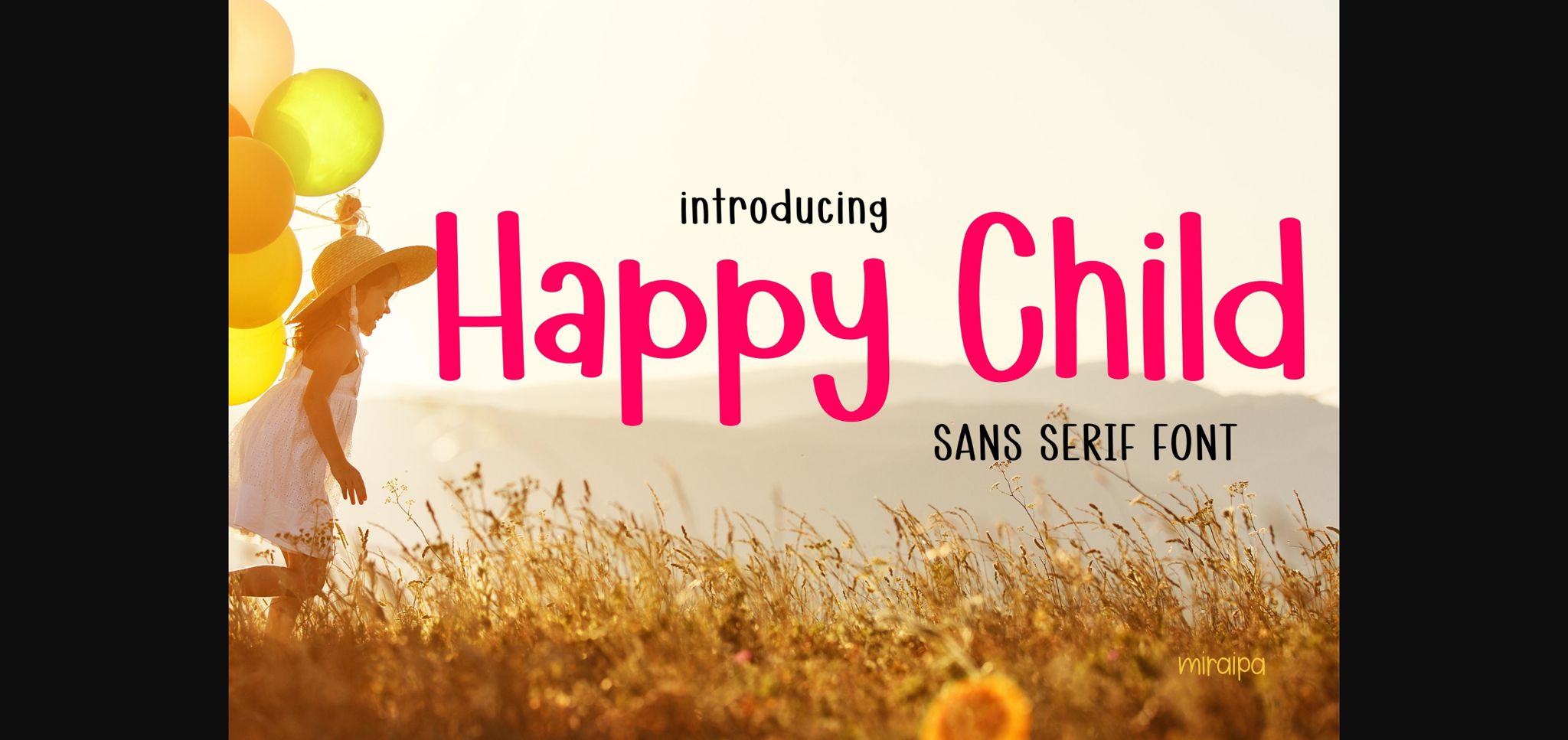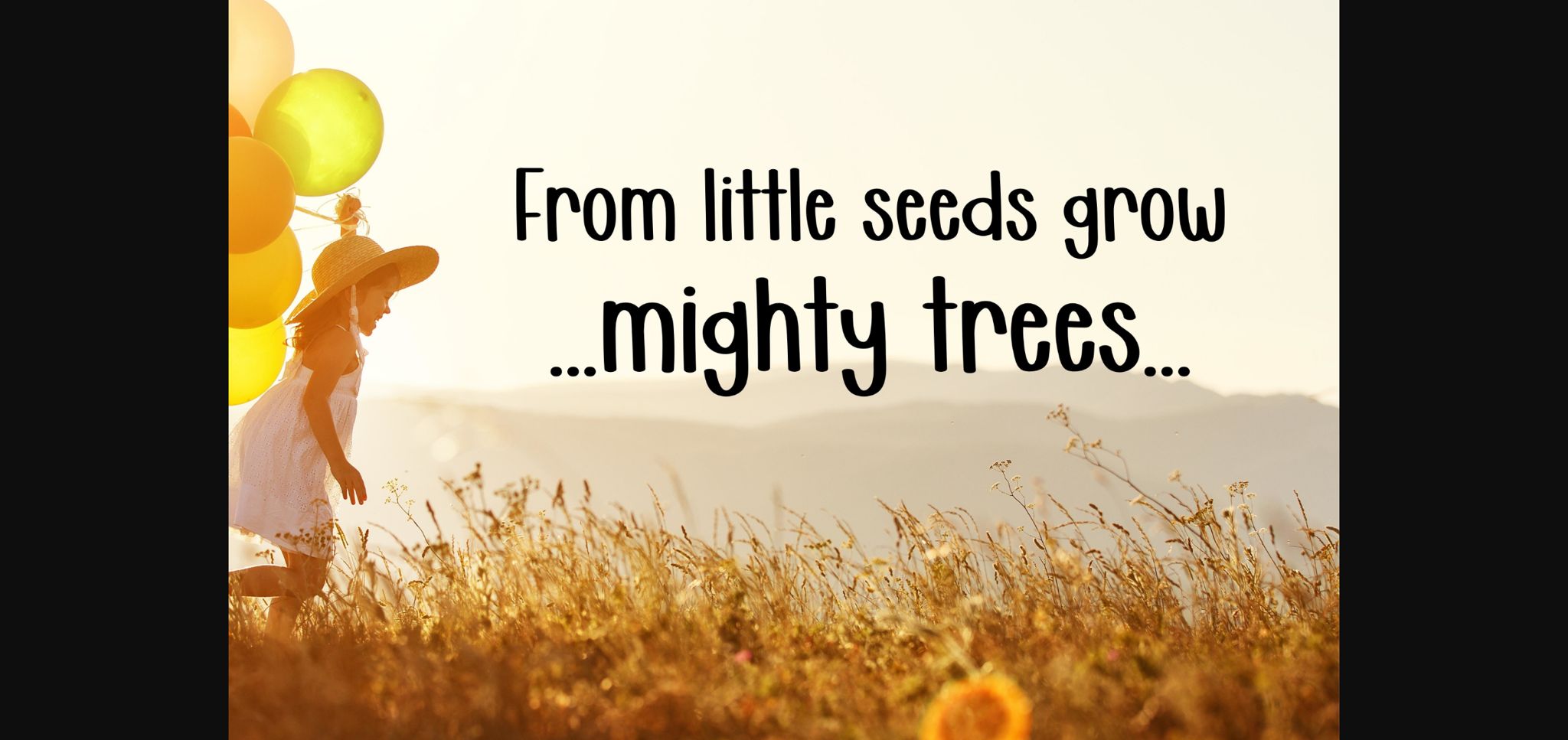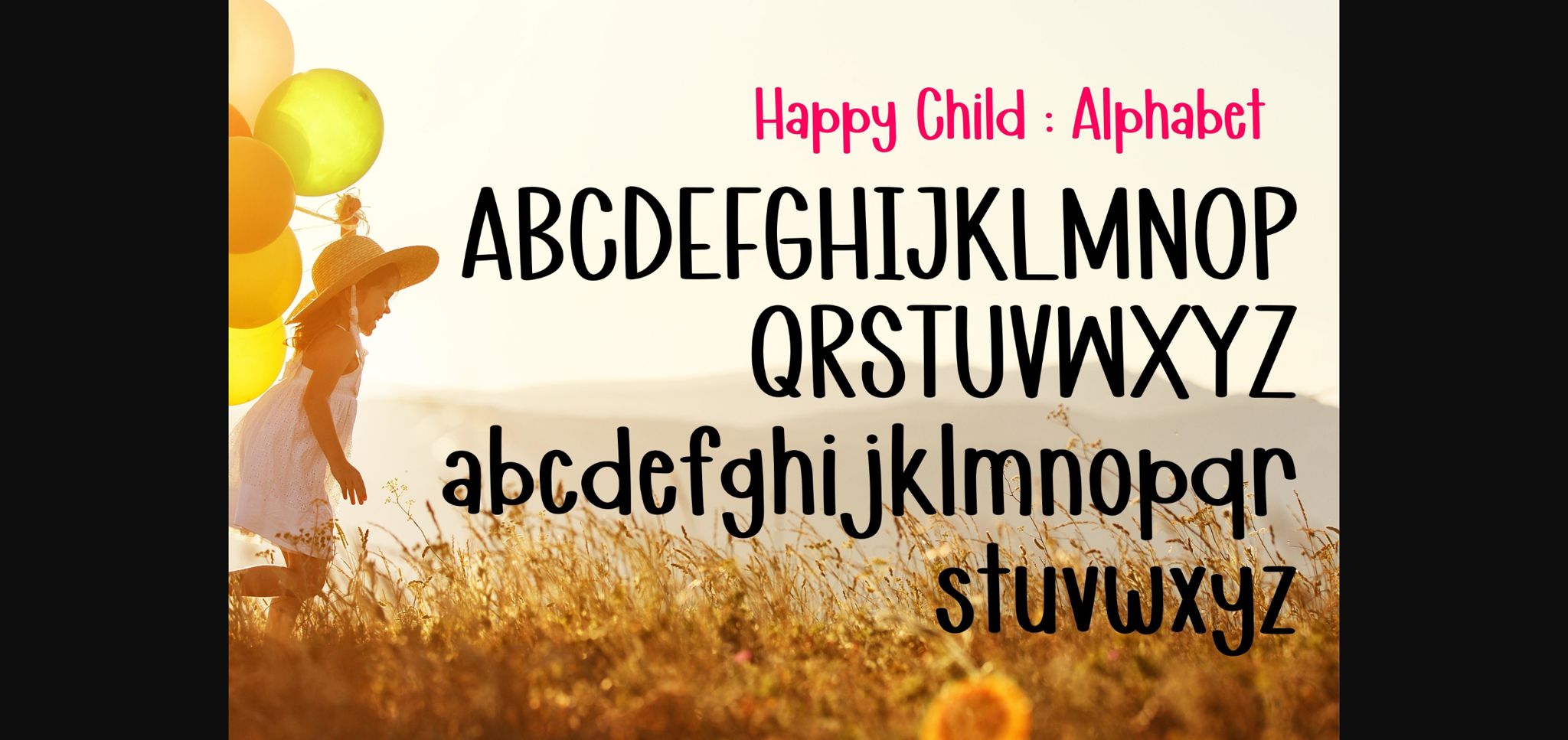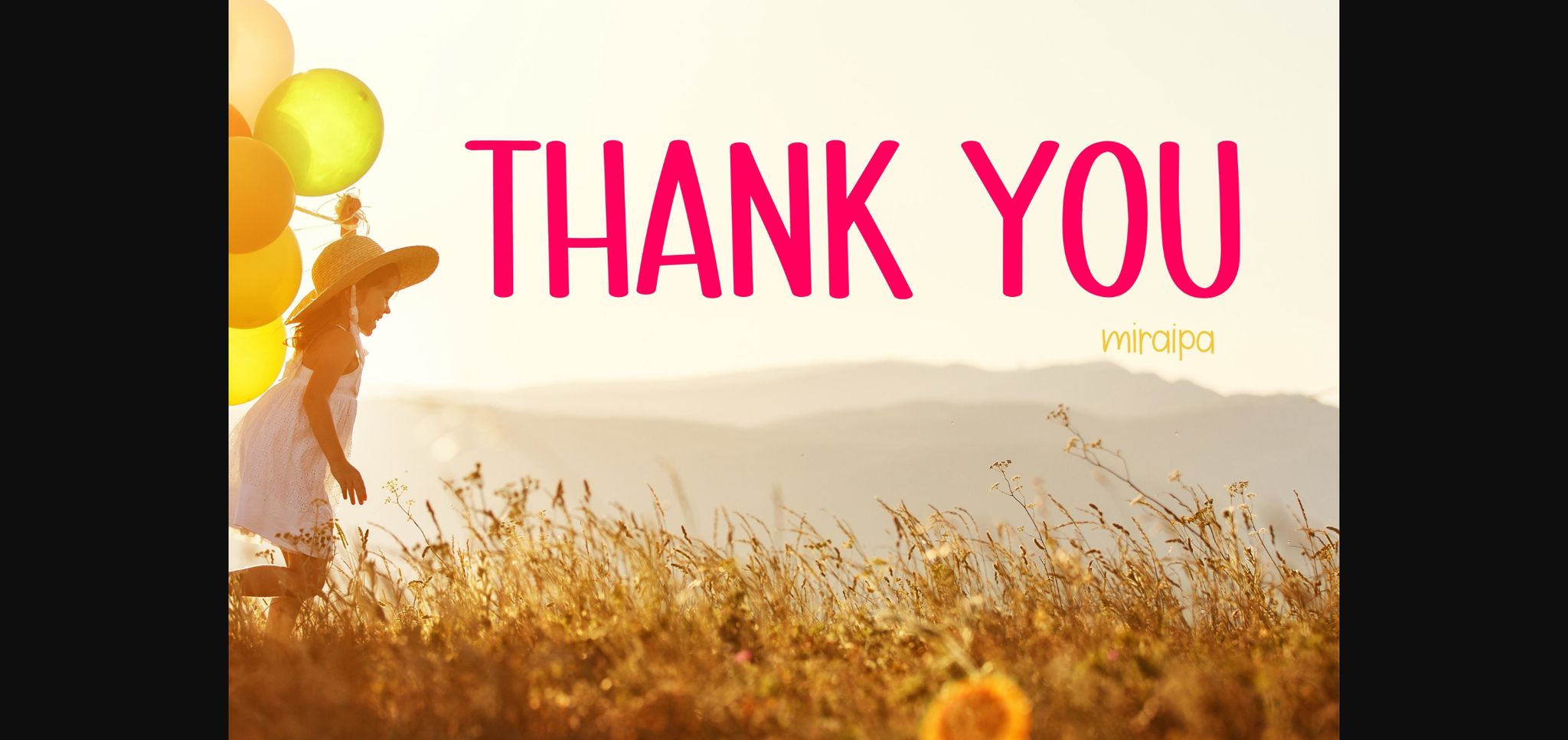
Happy Child Font
About Happy Child Font
Happy Child is a fun and friendly sans serif font. With its playful yet classic look, this font is sure to add some fun and flair to your designs.